Hey there, design enthusiasts! Ever feel like your projects need a jolt of digital disruption, a touch of that cool, slightly broken aesthetic? Well, you're in the right place! The "glitch" look has been making waves across all sorts of creative fields, from bold branding to eye-catching posters and dynamic website headers. There's just something undeniably modern and attention-grabbing about typography that plays with digital distortion, pixelation, and that cool static vibe.
That's why we've put together this handy list for you: fifteen best glitch fonts for commercial applications. We've scoured the digital landscape to bring you a selection of truly standout glitch fonts that not only look fantastic but also come with the necessary licenses for your commercial endeavors. Get ready to inject some digital edge into your designs – let's dive in!
Alright, now that we've established why glitch fonts are so awesome and the importance of having those commercial-use rights locked down, let's get to the good stuff! We're about to showcase ten incredible glitch fonts that we think are absolutely essential for your commercial design toolkit. Each one brings its own unique flavor of digital disruption to the table, and we'll highlight what makes them special and where they might shine brightest in your projects. Get ready to discover some seriously cool typefaces!
"Vorcas" by RantautypeStudio is an experimental font that aims to capture the appearance of a digital glitch while maintaining a modern and futuristic shape. The design features clean lines with strategically placed horizontal disruptions, creating a sense of digital error within a contemporary framework. Vorcas is described as a perfect choice for logos, advertisements, stationery, branding projects, display and magazine use, corporate branding, product design, labels, business projects, and anything needing a futuristic or sporty touch. Available through a subscription on Creative Fabrica, Vorcas comes in regular and italic styles with OTF, TTF, and WOFF files, standard glyphs, numerals, functional characters, alternates, ligatures, and extensive multilingual support, all covered by a commercial license.
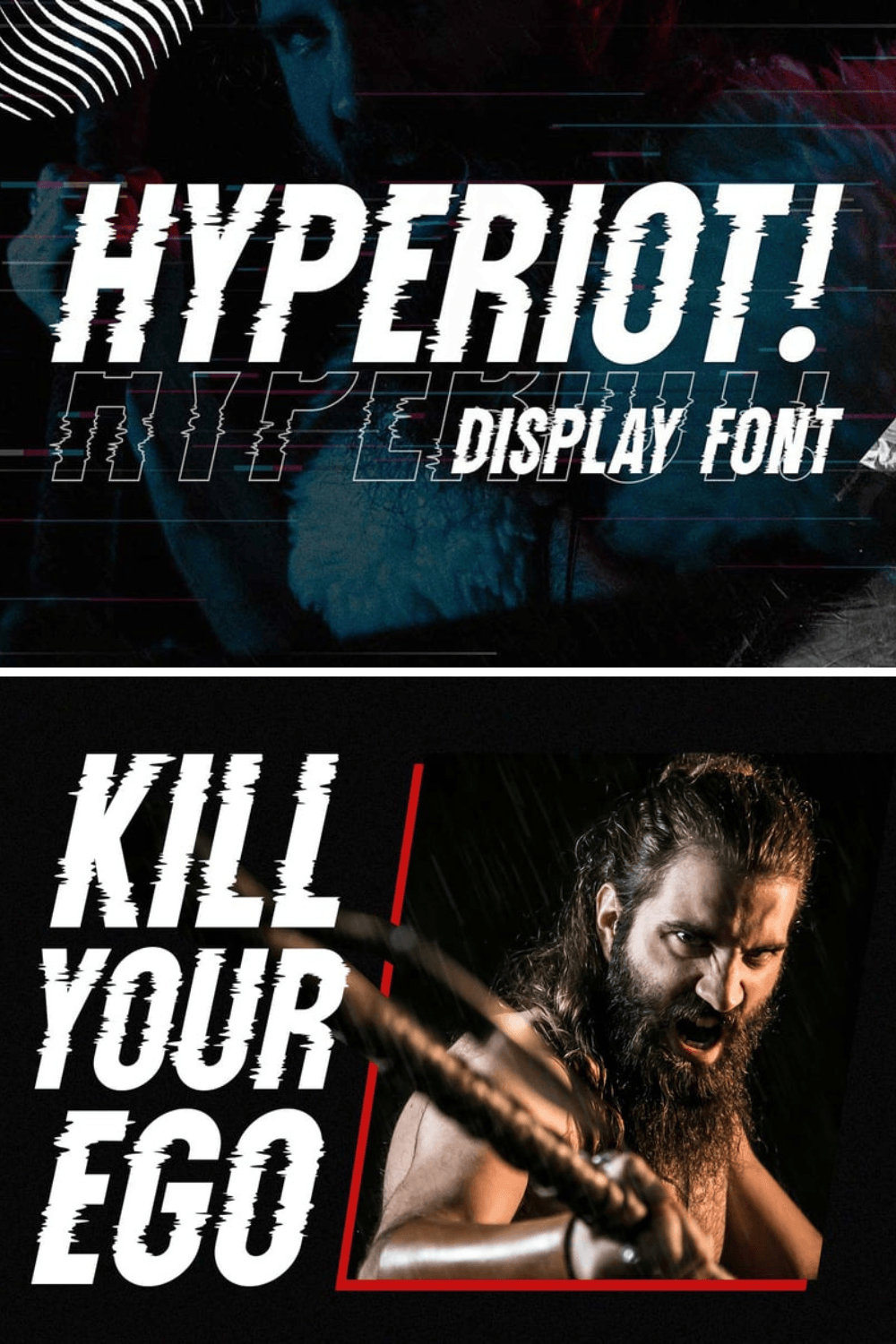
This experimental condensed font throws a punch with its brutalist inspiration and distinct glitch style. Designed with a randomized glitch effect, Hyperiot brings a unique and attention-grabbing aesthetic to the table. It's the perfect choice for projects aiming for a digital, sporty, techno, futuristic, or urban vibe. Plus, with its special characters for creating typography variations and multi-language support, Hyperiot is a versatile workhorse for headlines, posters, logos, websites, social media, apparel, and more. Created by Ramzehhh and available on Graphic River, Hyperiot comes with a commercial license, allowing you to use its edgy style in unlimited end products.
Mokoto is an experimental layered multiply typeface designed to give the appearance of a truly dynamic digital glitch. Inspired by modern fonts and the visual artifacts of system errors, Drizy has created something really compelling here. What makes Mokoto particularly unique is its layered structure. It comes with four font layers – Regular, Glitch Mark I, Glitch Mark II, and Glitch Outline Regular – allowing you to mix, match, color, and blend them to create a vast array of custom glitch effects. This font is an ideal display or lead option for web and print projects, contemporary posters, forward-looking motion graphics, video games, album covers, logos, branding, and more. Available on Graphic River, Mokoto offers a commercial license for unlimited end products, empowering you to get seriously creative with its glitchy potential.
Straight to the point, this font by Artkenza is simply called "Glitch," and it lives up to its name as a perfect and somewhat crazy display option for projects that need a sharp and impactful stroke. While the glitch effect here is more integrated into the letterforms themselves, creating a slightly fragmented and edgy feel, it's incredibly versatile. The provided examples showcase its potential for everything from bold titles and movie names to branding for vehicle repair shops, squad names on t-shirts, and impactful product names. Available on Graphic River with a commercial license for unlimited end products, "Glitch" offers a more streamlined take on the digital distortion trend.
Don't let the name fool you – "Uncracked" by typefactoryco is all about that beautifully broken digital look. This font delivers a detailed glitch style that's particularly well-suited for projects in gaming, music, and movie posters, as well as other graphics that need a touch of digital grit. It comes packed with features, including uppercase and lowercase letters, symbols and punctuation, numerals, alternates, ligatures, and multilingual support. Available on Envato Market, and Creative Fabrica "Uncracked" includes various file formats (OTF, TTF, WOFF, WOFF2) and a commercial license, making it a versatile and legally sound choice for adding a strong glitch effect to your commercial work.
Also from typefactoryco, "Debug" is an eccentric, all-uppercase typeface specifically designed to illustrate an artistic and modern digital glitching effect. The description highlights the historical context of glitch art and its modern significance as a tool for artists. This font is presented as perfect for creating impressive branding, stunning t-shirt designs, game titles, and a wide range of other creative applications where a contemporary and slightly flawed aesthetic is desired. "Debug" comes with symbols, punctuation, numerals, alternates, and multilingual support, and like the previous font from this designer, it's available on Envato Market with a commercial license and multiple file formats.
From nihstudio, this font is aptly named "Glitching" and offers a sans-serif take on the distorted aesthetic. It features a clean, modern base with strategically placed "glitches" that add a touch of digital unease and visual interest. This font is described as great for a variety of projects, including logo branding, print media, screen printing, and signage, and suitable for industries like automotive, clothing, games, music, and web design. "Glitching" comes with OTF, TTF, and WOFF files, a helpful readme, and supports PUA encoded characters for easy access in various software. It's available on Envato Market with a commercial license, making it a versatile and commercially viable option for a slightly more refined glitch look.